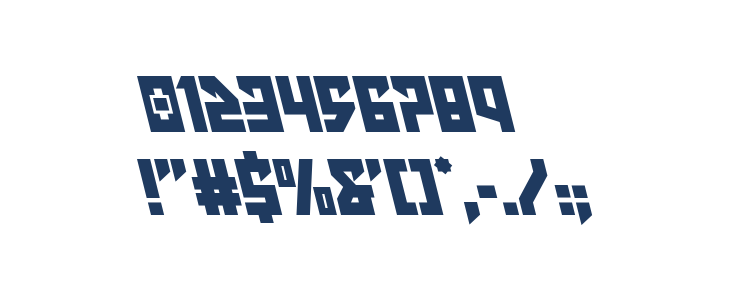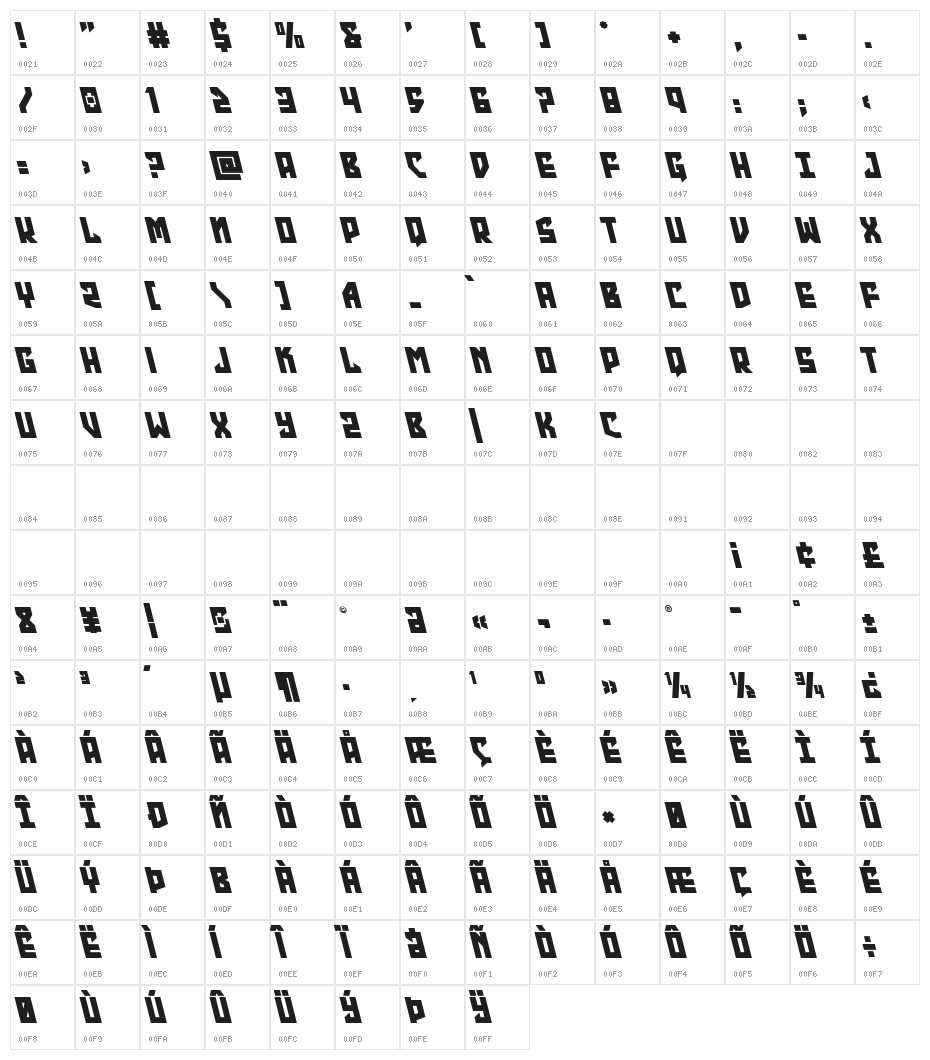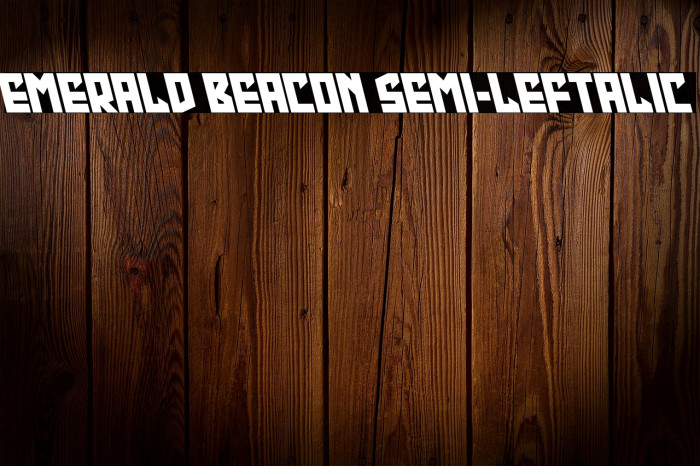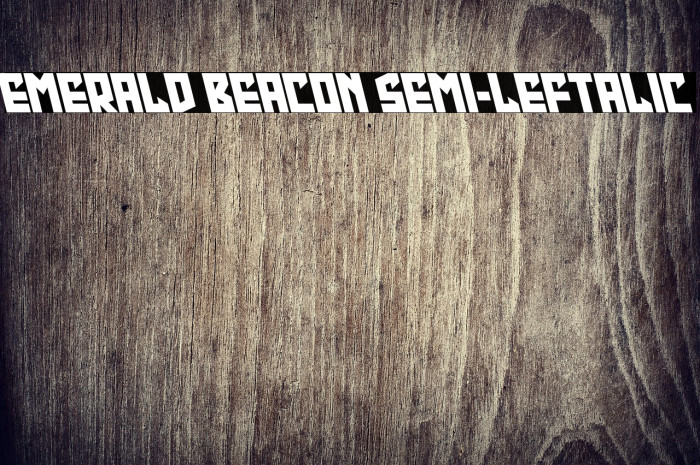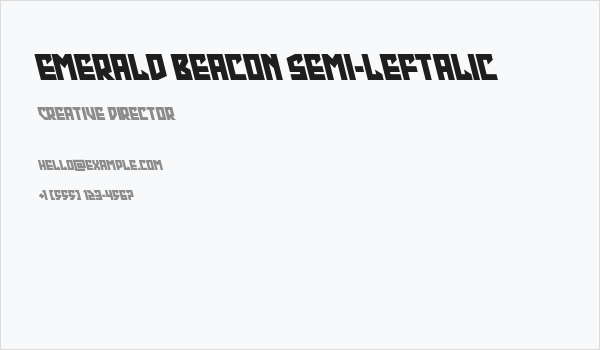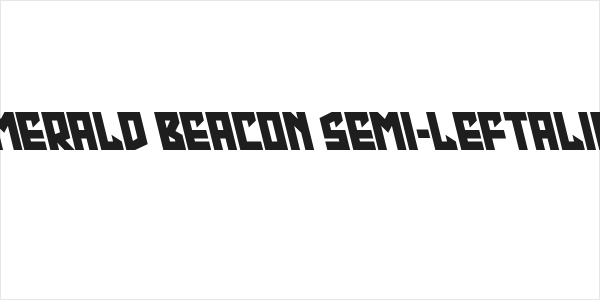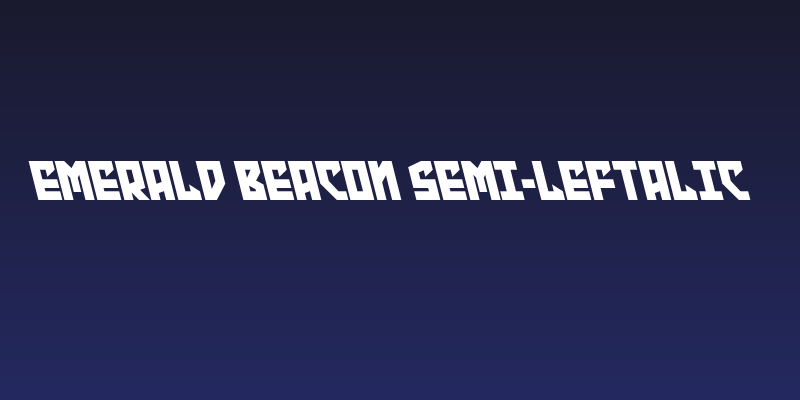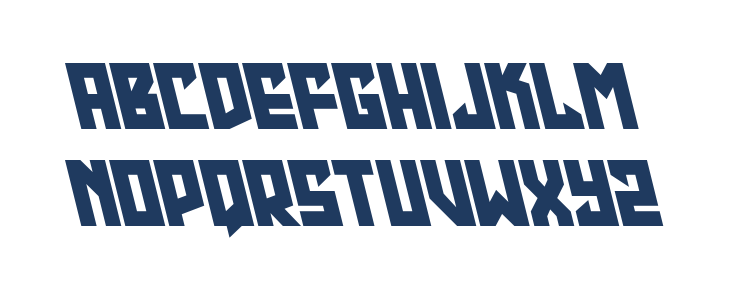
Emerald Beacon Semi-Leftalic Font
Emerald Beacon Semi-Leftalic Description
This font features a bold and angular design with a distinct geometric style. The characters are sharply cut with a leftward slant, giving them a dynamic and aggressive appearance. The uppercase and lowercase letters maintain a consistent weight, contributing to a uniform look across the board. The numbers and special characters follow the same angular and bold aesthetic, ensuring cohesion throughout the typeface. The font's unique style makes it stand out, with each character exhibiting a strong presence due to its thick strokes and sharp edges. The overall design is modern and eye-catching, suitable for projects that require a bold statement.
| Proposed Projects | Ideal for use in headlines, posters, logos, and branding projects that require a strong and modern visual impact. |